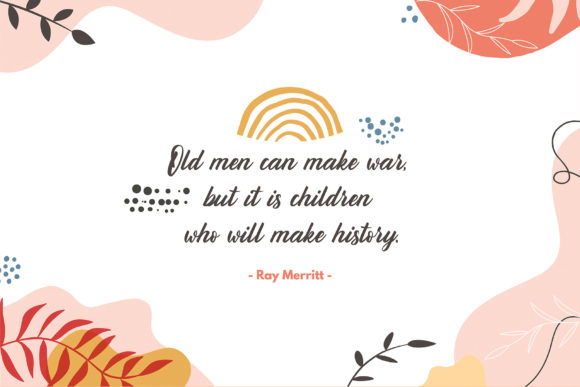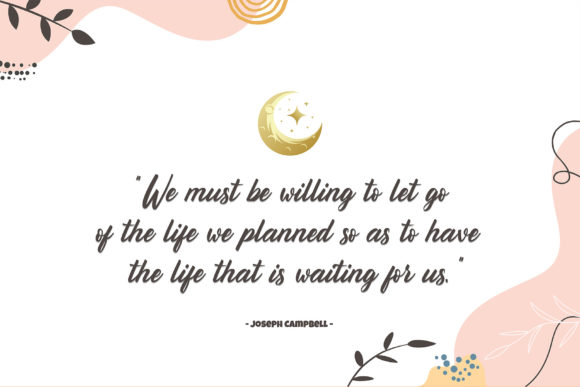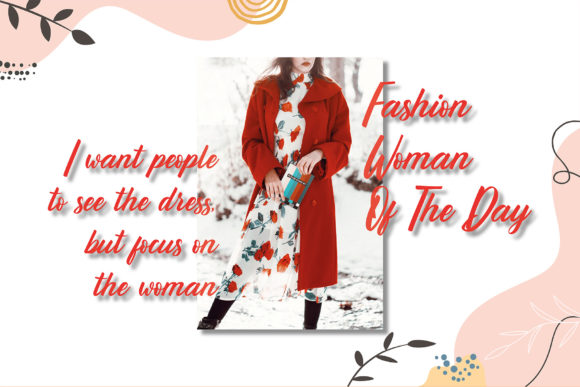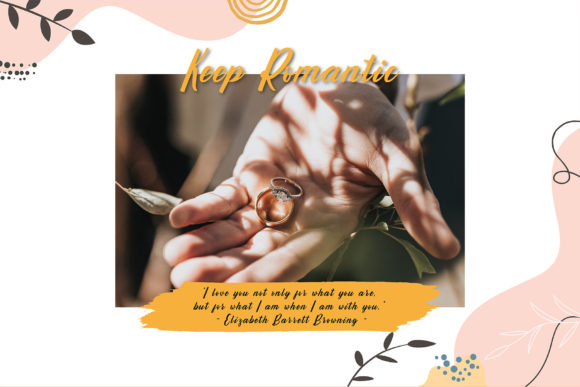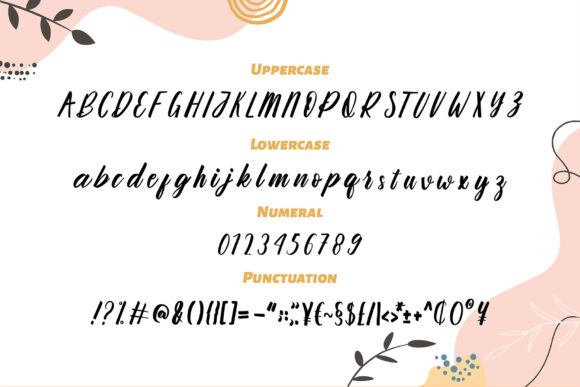
The Perfect Script for Your Next Masterpiece
Do you remember the moment when you fell in love with a beautiful handwritten font? For many designers, it’s a moment that sparks creativity and inspires new ideas. Perhaps it was a vintage sign, a handwritten letter, or a beautifully crafted logo that caught your eye. Whatever the inspiration, it’s moments like these that remind us of the power of typography to evoke emotions and tell stories.
Abigail Font is a lovely paint brushed script font that’s perfect for any project that requires a touch of elegance and sophistication. Whether you’re working on a logo, branding project, label, or photography, Abigail Font adds a beautiful script touch that sets your design apart. Its versatility and timeless charm make it a valuable asset for designers, allowing them to create unique and memorable designs that leave a lasting impression.
Abigail Font Key Features
- Unique Characteristics: Abigail Font features a unique, elegant script style with intricate details and flourishes, making it ideal for formal invitations, wedding stationery, and other high-end designs.
- Weight and Style Options: Abigail Font includes multiple weights and styles, including Regular, Italic, Bold, and Bold Italic, allowing for a wide range of design possibilities.
- Language Support: Abigail Font supports a wide range of languages, including Latin, Greek, and Cyrillic scripts.
Abigail Font Review
Overall, I’m quite impressed with the Abigail Font. Its elegant and sophisticated design makes it perfect for any high-end project or branding. ✨ Here are some of its standout features:
- Refined Typography: The Abigail Font has a unique, handcrafted feel that’s sure to elevate any design project.
- Wide Character Set: This font includes a vast array of characters, including ligatures, ornaments, and even some alternative characters.
- High-Quality Output: The font renders beautifully in various sizes and resolutions, making it suitable for both digital and print projects.
- Weight Limitations: While the font has a decent range of weights, it might not be suitable for projects requiring extreme light or bold weights.
- Font Pairing: Due to its unique style, Abigail Font might be challenging to pair with other fonts, which could limit its versatility.
Overall, the Abigail Font is a solid choice for designers seeking a high-end, elegant font. While it may have some limitations, its unique design and refined typography make it a great addition to any design library.
Abigail Font: A Practical Application Guide
Abigail Font is ideal for creating elegant and sophisticated designs in Canva, such as wedding invitations, birthday cards, and business brochures.
Abigail Font is perfect for creating high-end designs in Adobe Photoshop and Illustrator, such as luxury brand identities and fine art prints.
Abigail Font is ideal for creating polished and professional designs in PowerPoint and Word, such as corporate presentations and academic manuscripts.
Tips for Getting the Most Out of Abigail Font
Here are some tips for getting the most out of Abigail Font:
- Use Abigail Font in combination with elegant images and graphics to create sophisticated designs.
- Experiment with different font sizes and styles to create visual interest and emphasis.
- Use Abigail Font to create a
Alternatives to Abigail Font
Playfair Display is a luxurious script font, ideal for titles and headings that require elegance and sophistication. It’s perfect for projects that demand a high-end look, such as luxury brands, weddings, or high-end fashion magazines.
Compared to Abigail Font, Playfair Display is more ornate and luxurious, making it suitable for projects that require a touch of opulence. While Abigail Font is versatile and easy to read, Playfair Display is more dramatic and eye-catching.